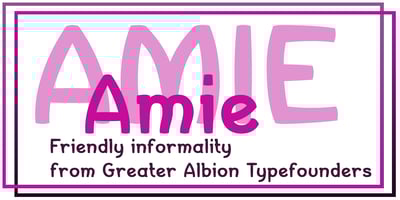
Amie Font Family was designed by Paul James Lloyd and published by Greater Albion Typefounders. Amie contains 1 styles and family package options. Amie is a friendly Sans Serif display face, with a hint of hand drawn flair. Ideal for poster work, album covers, book covers and for bringing an element of friendly style anywhere.